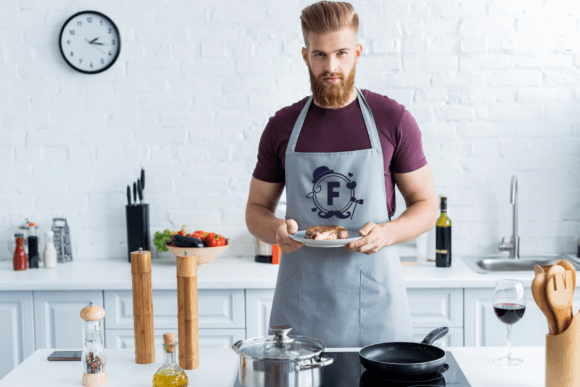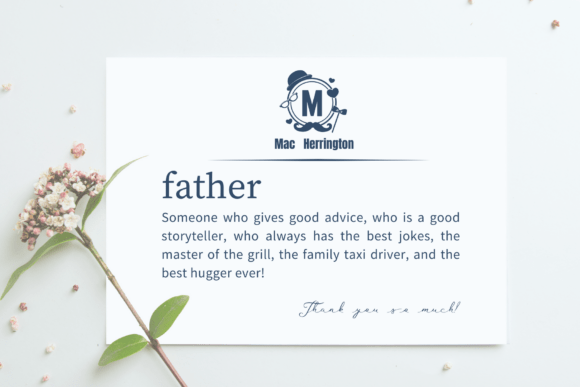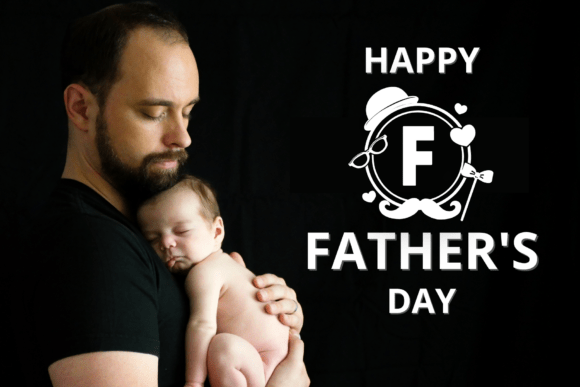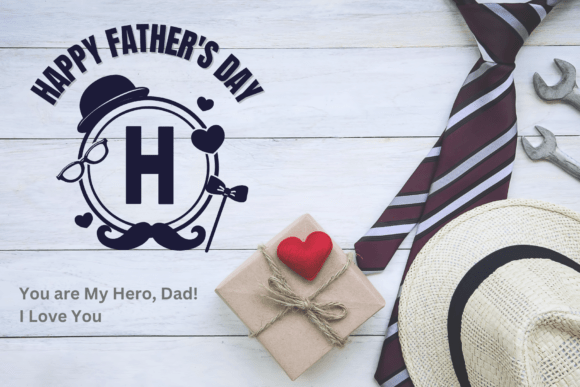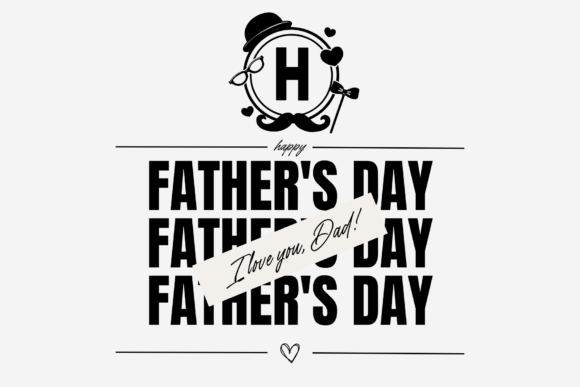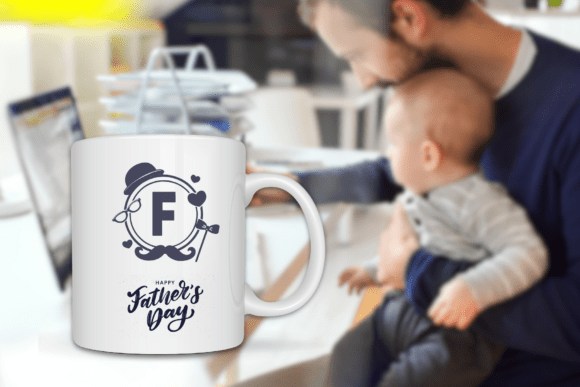
Introducing Father’s Day Monogram Font: A Bold and Heartfelt Celebration of Dads
Are you looking for a unique and stylish way to celebrate Father’s Day? Look no further than the Father’s Day Monogram Font, a bold and heartfelt display font designed specifically for dads. This font is perfect for creating Father’s Day cards, gifts, apparel, and DIY crafts that will make your dad feel special.
A Strong and Masculine Typeface
The Father’s Day Monogram Font features a strong, masculine typeface that exudes confidence and charm. The bold letters are perfect for making a statement, and the font’s classic feel ensures that it will never go out of style. Whether you’re creating a personalized gift for dad or a heartfelt card, this font is sure to impress.
Charming Monogram Elements
What sets the Father’s Day Monogram Font apart is its charming monogram elements, including hats, glasses, and mustaches. These fun and playful elements add a touch of whimsy to any design, making it perfect for Father’s Day creations. Imagine adding a top hat to a dad’s initials or a pair of cool shades to a personalized gift – the possibilities are endless!
Perfect for Father’s Day Celebrations
The Father’s Day Monogram Font is specifically designed to bring a fun yet classy vibe to every father-focused creation. Whether you’re a designer, crafter, or simply someone who wants to celebrate dad in style, this font is perfect for:
- Father’s Day cards: Create personalized cards with dad’s initials and a special message.
- Gifts: Add a touch of elegance to gifts such as personalized mugs, t-shirts, or engraved accessories.
- Apparel: Design custom t-shirts, hoodies, or hats with dad’s name or initials.
- DIY crafts: Add a personal touch to DIY crafts such as picture frames, signs, or decorations.
Why Choose the Father’s Day Monogram Font?
So why choose the Father’s Day Monogram Font over other fonts? Here are just a few reasons:
- Unique and exclusive: This font is specifically designed for Father’s Day celebrations, making it a unique and exclusive choice.
- High-quality design: The font features high-quality design elements, ensuring that your creations look professional and polished.
- Versatile: The font can be used for a wide range of projects, from digital designs to print materials.
Tips for Using the Father’s Day Monogram Font
Here are a few tips for using the Father’s Day Monogram Font:
- Experiment with different colors: Try pairing the font with different colors to create a unique and eye-catching design.
- Add graphics and images: Add graphics and images to enhance the design and make it more visually appealing.
- Play with monogram elements: Experiment with different monogram elements, such as hats and glasses, to add a touch of whimsy to your design.
- Keep it simple: Don’t be afraid to keep the design simple and elegant – sometimes less is more.